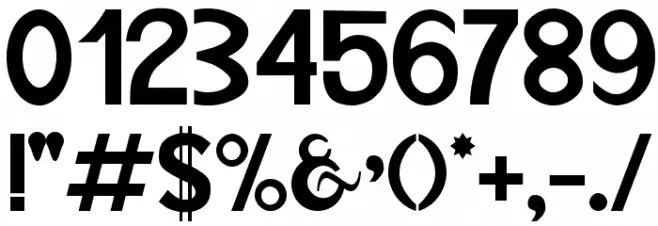
Vieira Font
Vieira Description
This font features a bold and modern sans-serif style with clean, geometric lines and uniform stroke widths. The uppercase and lowercase letters are well-balanced, offering a harmonious appearance. The numerals are distinct and easy to read, while the special characters maintain the same boldness and clarity. The overall design is sleek and contemporary, making it suitable for a variety of applications where a strong visual impact is desired. The font's simplicity and boldness make it versatile for both digital and print media.
A bold, modern sans-serif font with clean, geometric lines from Uncategorized fonts.
- Proposed Projects: Ideal for branding, advertising, headlines, and digital media where a strong, modern aesthetic is required.
- Use Case: Headlines, Logos, Branding